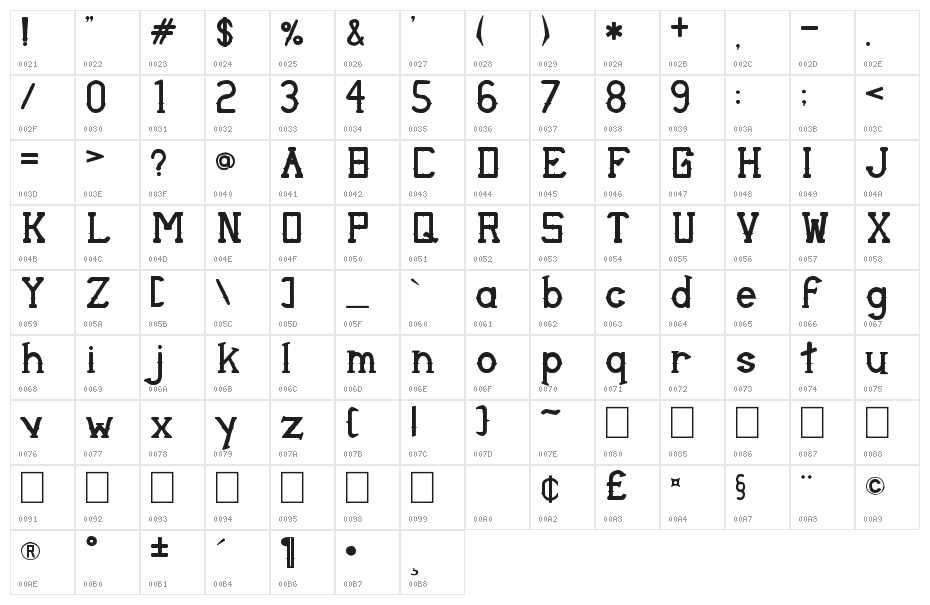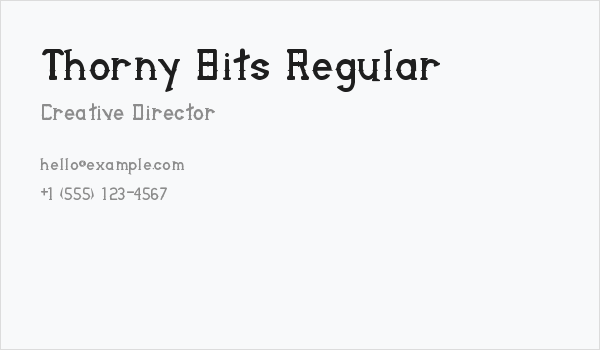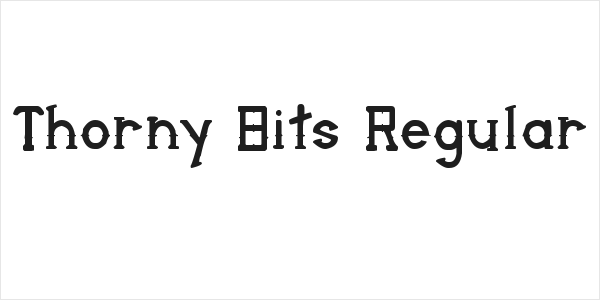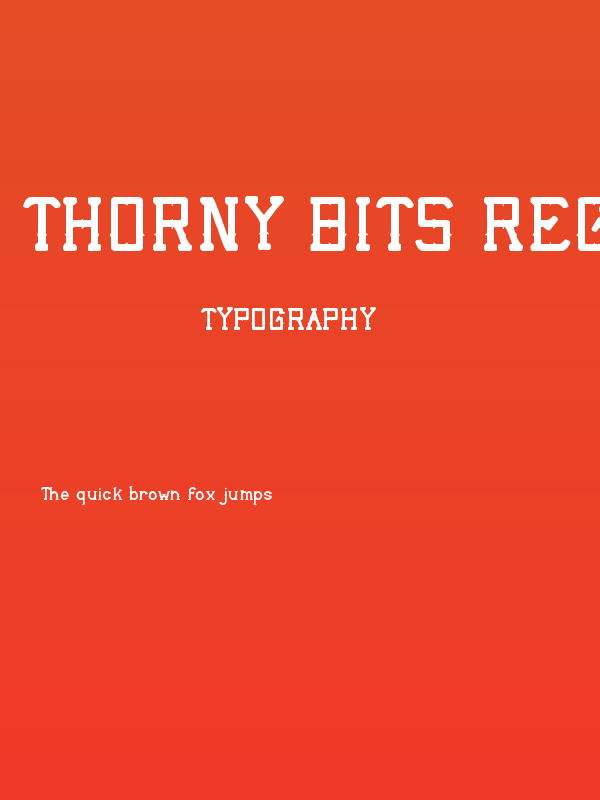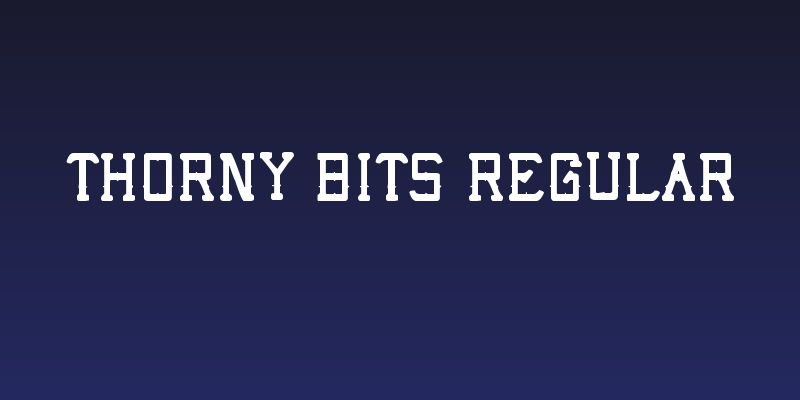
Thorny Bits Regular Font
Thorny Bits Regular Description
This font features a unique and edgy design with sharp, thorn-like elements integrated into the letterforms. The uppercase letters are bold and structured, giving a sense of strength and stability, while the lowercase letters maintain a consistent style with slightly rounded edges. The numerals are clear and distinct, matching the overall aesthetic. Special characters are creatively designed, adding to the font's distinctive personality. This font is perfect for projects that require a bold and unconventional look.
| Proposed Projects | Ideal for posters, album covers, branding for edgy or alternative products, and any design needing a standout, unconventional typeface. |